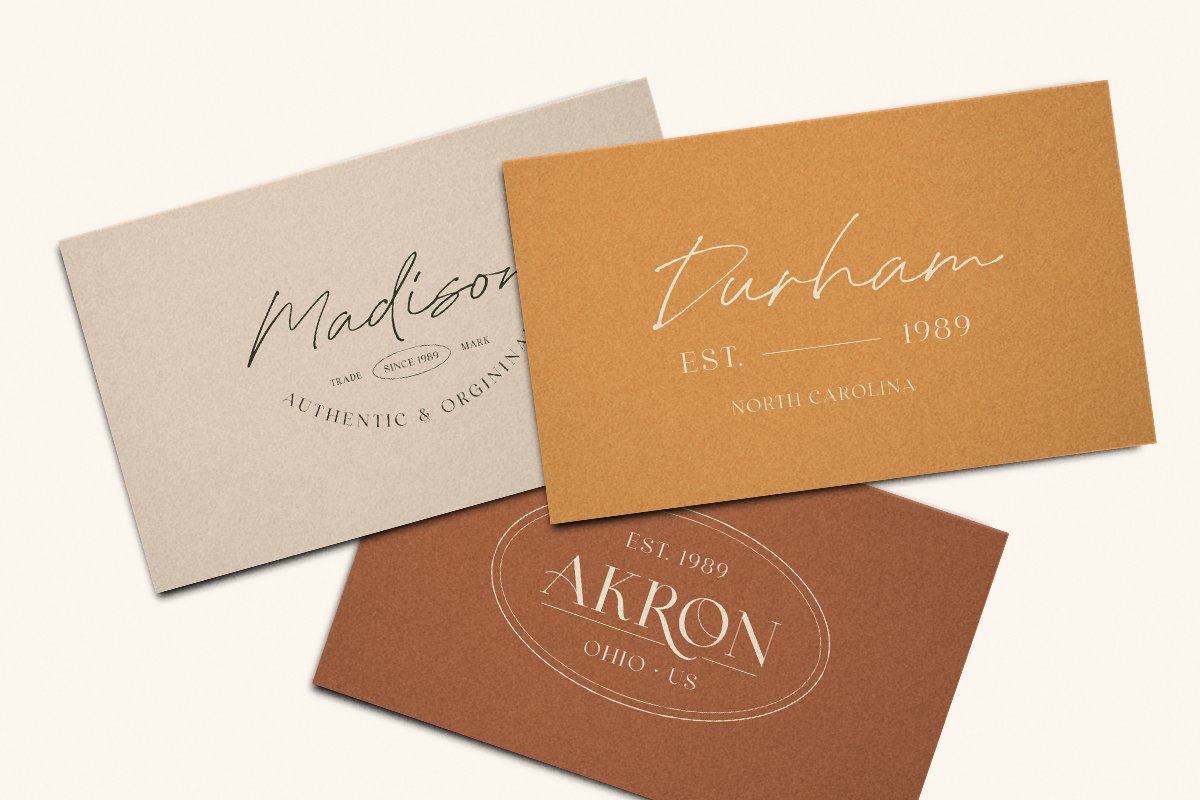
About the Gardena Holmes Duo LOGOS Font
Introducing, Gardena Holmes – Font Duo | Serif & Script with Bonus Editable LogoGardena Holmes is perfect combination between classic serif with signature script, Contain two fonts, the delicate modern serif and a free hand writing script, This font duo also support multilingual, number and symbol, end swash and many ligatures, Also this font already PUA Encoded